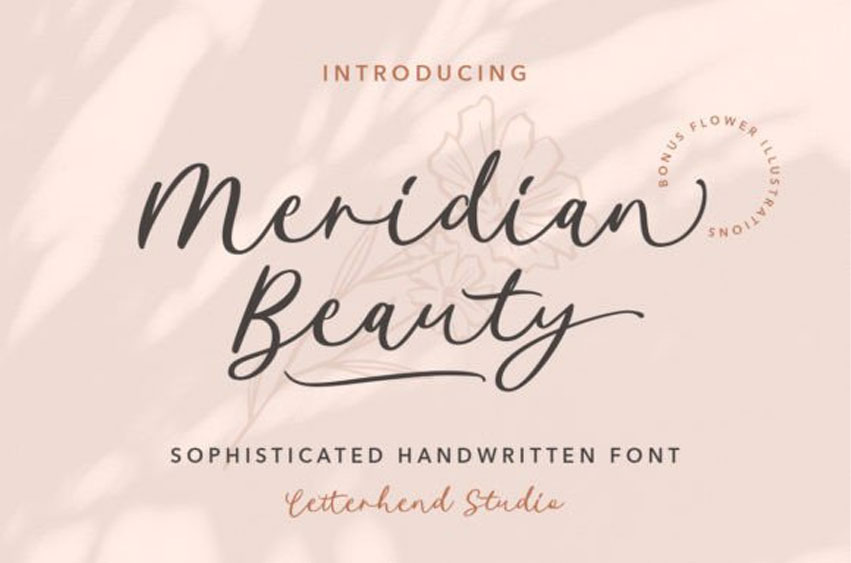
Meridian Beauty Font
Meridian Beauty Font is handwritten with clean and chic looks. The natural flow makes this font looks like real handwriting. It comes with a flower hand-drawn bonus.
This font is perfectly made to be applied especially in logos, and other various formal forms such as invitations, labels, logos, magazines, books, greeting/wedding cards, packaging, fashion, make-up, stationery, novels, labels, or any type of advertising purpose.